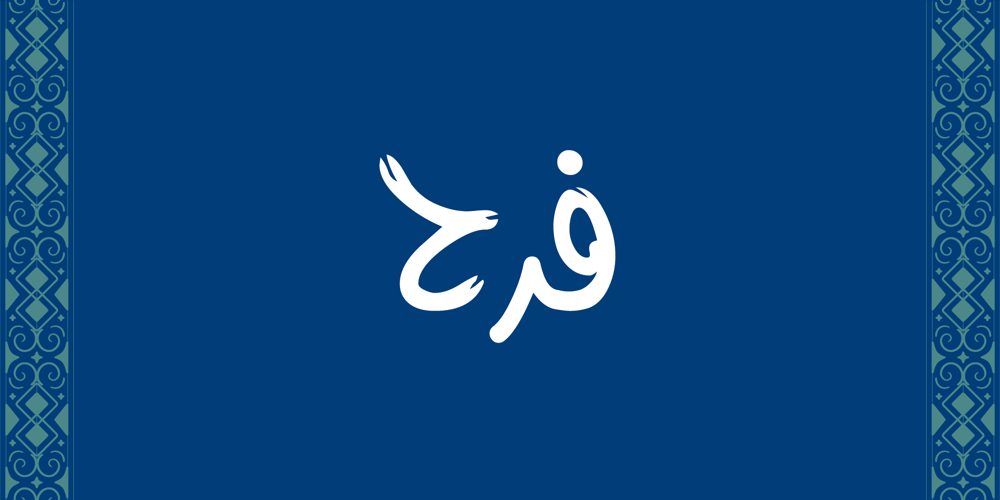
Farah
Farah font
Farah Font Family was designed by Abdalla Faris and published by Diwan Software. Farah contains 1 styles and family package options. Farah is an Arabic word for happiness and that is the best word to describe this font with its nice fun curves.